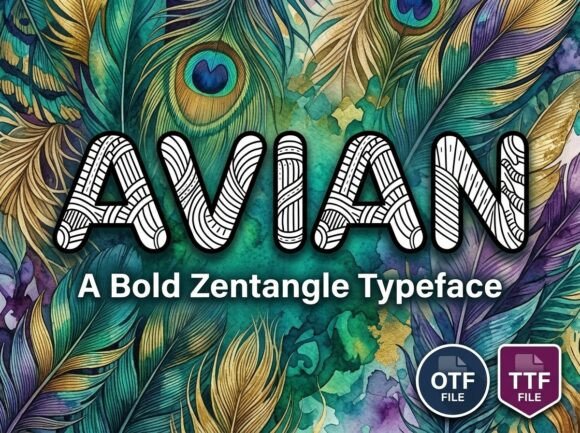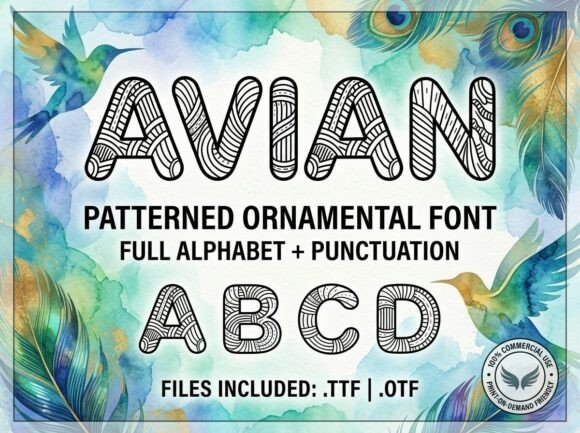
Take Flight with Your Next Design Project
Have you ever been in the midst of a creative project, pouring over sketches and ideas, and suddenly, a spark of inspiration hits? It’s that moment when the right font can elevate your design from ordinary to extraordinary. For designers seeking to add a touch of personality to their work, the Avian Font is a game-changer.
This detailed display typeface is designed to capture the essence of a creative soul, with bold, rounded letterforms that boast an internal texture of hand-drawn “zentangle” patterns. The result is a font that seamlessly blends mindful illustration with modern artisanal branding. Whether you’re designing for an independent stationery boutique or creating social media headers, the Avian Font is the perfect choice for adding a touch of whimsy and sophistication to your work.
Avian Font Key Features
- Unique Characteristics: The font features a unique blend of modern and organic elements, with intricate details and subtle texture, making it ideal for creative and artistic projects.
- Font Weight: The font is available in multiple weights, including Light, Regular, Bold, and Extra Bold, allowing for versatility in design applications.
Avian Font Review
At first glance, the Avian Font appears to be a beautiful and unique addition to any design project. ✨ The irregular, organic shapes evoke a sense of natural wonder, making it perfect for branding or packaging designs that aim to evoke a sense of the outdoors.
Here are some of the strengths of the Avian Font:
- ✨ Highly customizable, allowing designers to adjust the thickness, spacing, and letterforms to suit their project’s needs.
- ✨ Excellent legibility, even at smaller font sizes, making it suitable for body text as well as headlines.
- ✨ Unique and memorable, the Avian Font is sure to leave a lasting impression on your audience.
- ⚠️ Limited character set, which may cause issues for designers working with non-English languages.
- ⚠️ May not be suitable for projects that require a high level of precision or uniformity, as the irregular shapes can make it difficult to achieve consistency.
Overall, the Avian Font is a great choice for designers looking to add a touch of whimsy and personality to their projects. With some careful planning and customization, it can be a real showstopper. However, it’s essential to consider its limitations and ensure it’s the right fit for your specific project needs.
Tips for Getting the Most Out of Avian Font
Avian Font is ideal for creative projects that require a unique and eye-catching font. To get the most out of it, consider the following tips:
1. Use Avian Font for headings and titles to add visual interest to your design.
2. Experiment with different font sizes and styles to create a cohesive look.
3. Pair Avian Font with other creative elements, such as illustrations or graphics, to create a unique and engaging design.
Avian Font is commonly used in creative projects, such as:
1. Branding and logo design
2. Advertising and marketing materials
3. Social media graphics and posts
4. Infographics and data visualizations